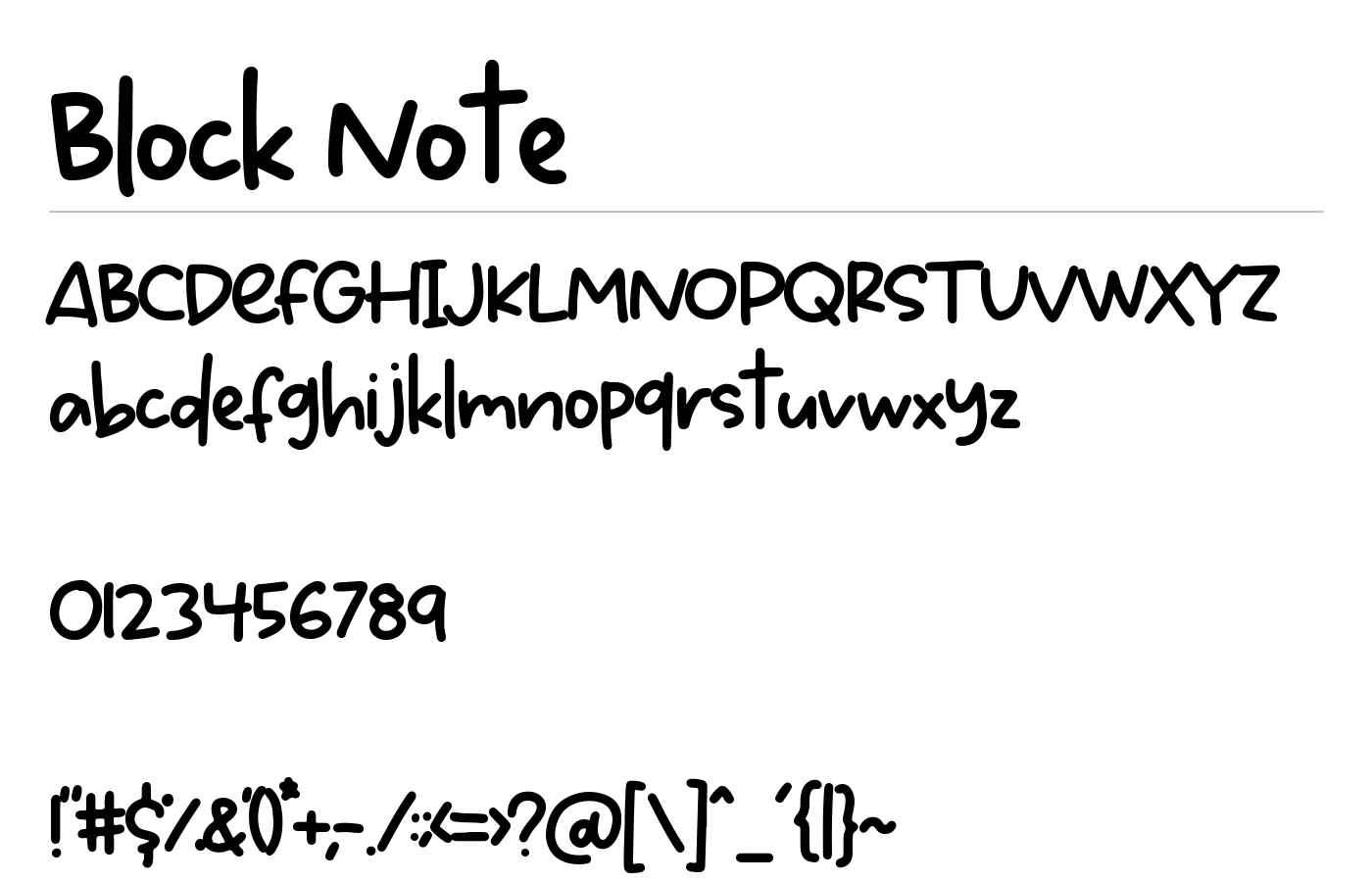
Block Note is a playful, casual sans serif font with a hand-drawn, organic feel. Its irregular strokes and informal style give it a friendly, approachable personality, making it perfect for creative projects, informal branding, children's materials, and fun editorial work where a relaxed, personal touch is desired.
Block Note Font
About Block Note Font
| Font family | Block Note Font |
| Designer | Dimas Prasetyo |
| Designer link | dmletterstudio.com |
| Trademark | Dm Letter Studio Bandung - Indonesia |